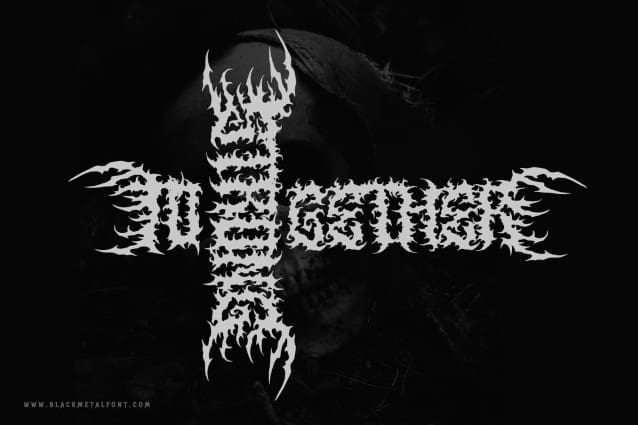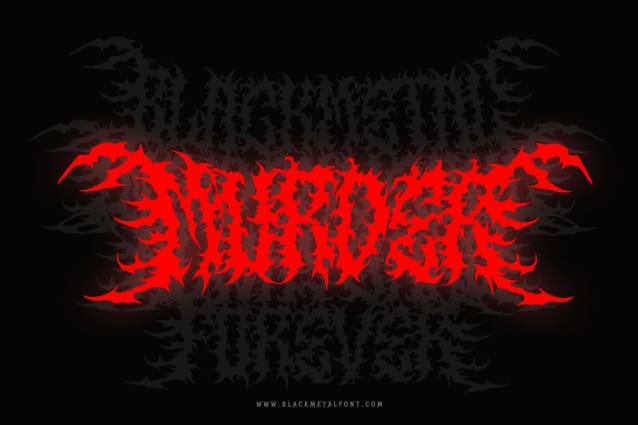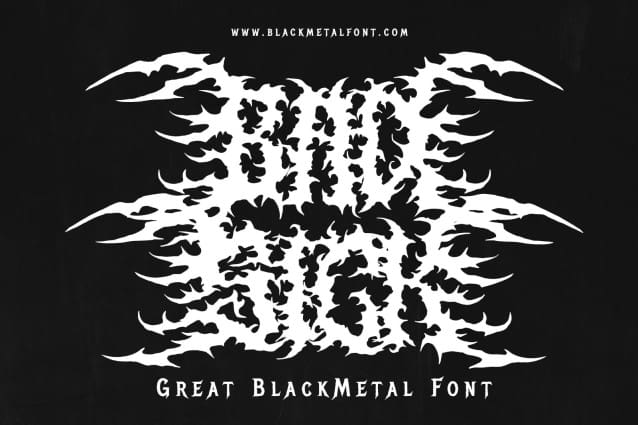
Badsick Blackmetal Font
Badsick Blackmetal Font, suitable for any projects such as: logos, branding projects, homeware designs, product packaging, mugs, quotes, posters, shopping bags, t-shirts, book covers, name card, invitation cards, greeting cards, label, photography, watermark, special events, and all your other lovely projects that need a black metal font taste.